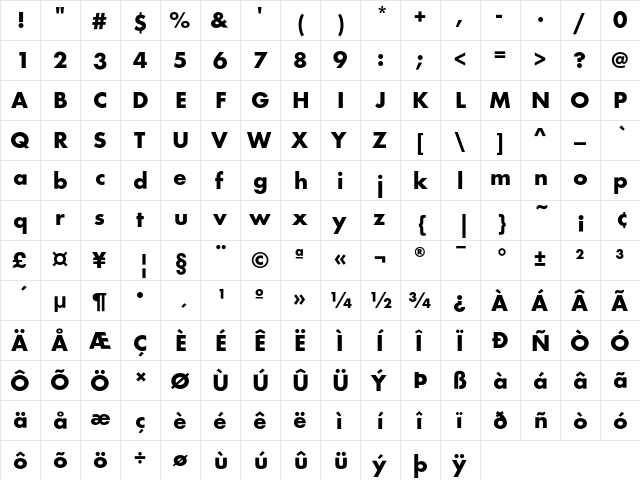
FuturaEF Bold
Design Context for FuturaEF Typeface
FuturaEF channels digital-age aesthetics through its sharp, structured letterforms — ideal for brands that want to signal innovation. The heavy weight commands attention and anchors typographic hierarchies.
Pro Tip: Try FuturaEF with generous letter-spacing in UI labels and navigation — the geometric forms benefit from room to breathe.